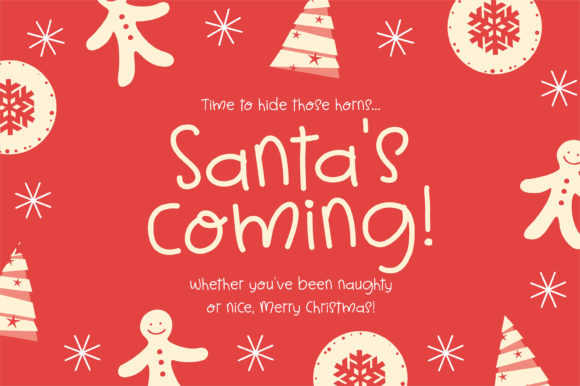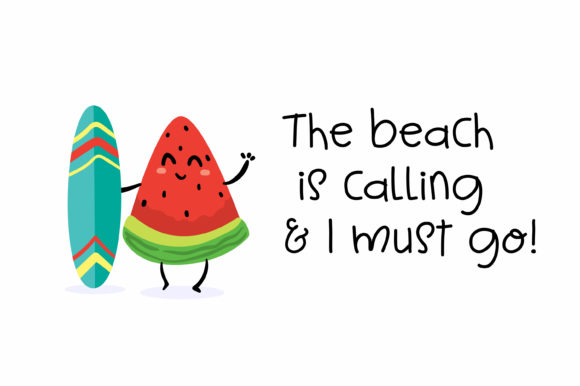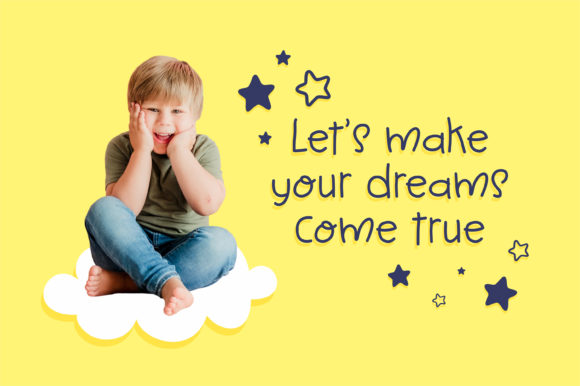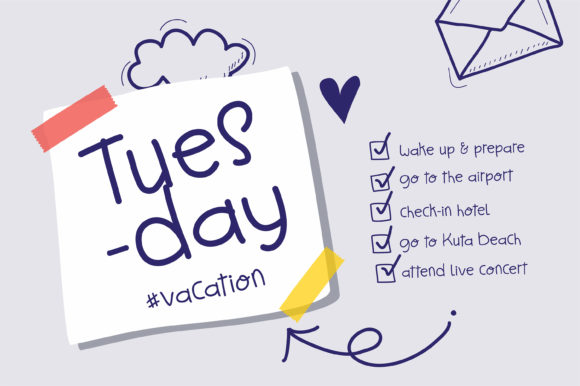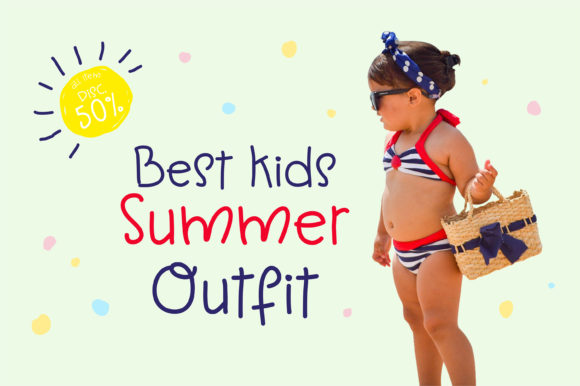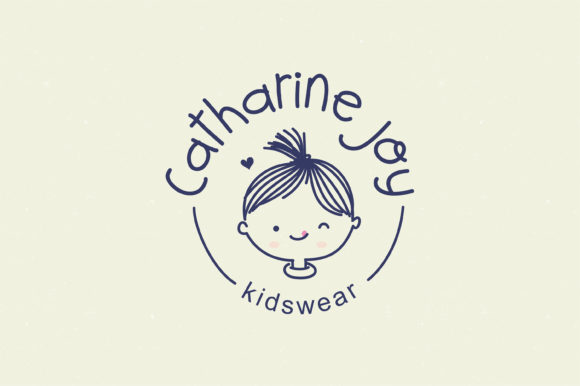
Introduction to Magical Diary Font
Have you ever stumbled upon a quote or phrase on a chalkboard that instantly sparks your creativity? For many designers, it’s those authentic and handwritten moments that fuel their next project. Whether you’re working on a personal creative project or a design resource for a client, the right font can make all the difference.
One font that’s sure to transport you back to a whimsical classroom is the Magical Diary Font. This cute and simple handwritten font is a treasure trove for designers looking to add a personal and realistic feel to their designs. With its high-quality and authentic look, it’s the perfect tool to bring your chalkboard quotes and teaching materials to life.
Key Features of Magical Diary Font
- Unique, whimsical design perfect for fantasy, magical, and mystical themes
Honest Review: Magical Diary Font
Here are some of the things that work well with the Magical Diary Font:
- ✨ The font’s transparent background allows for seamless integration with any background image or color.
- ✨ The high-quality design ensures that the font looks crisp and clear, even at larger sizes.
- ✨ The font’s magical and mystical feel makes it perfect for creative projects that require a touch of wonder.
While the Magical Diary Font is a great design resource, there are a few limitations to be aware of:
- ⚠️ The font is not suitable for formal or corporate projects, as its playful feel may come across as unprofessional.
Magical Diary Font
To get the most out of the Magical Diary Font, try experimenting with different font sizes, colors, and combinations to create unique and eye-catching designs.
The Magical Diary Font is perfect for a variety of creative projects, including:
- Children’s book covers
- Party invitations
- Webpage headers
- Printable art
Yes, the Magical Diary Font includes a transparent background, making it easy to use with any background design. The font is also designed with a high level of detail, ensuring that it looks great in both small and large sizes.